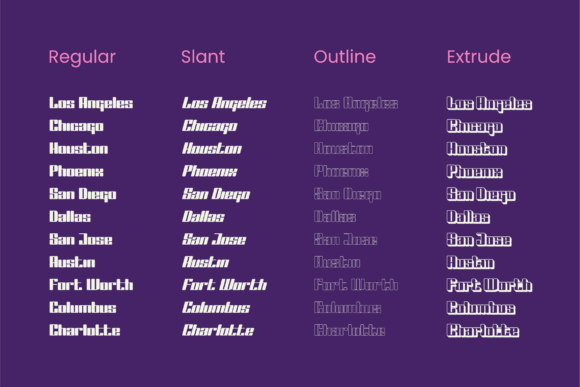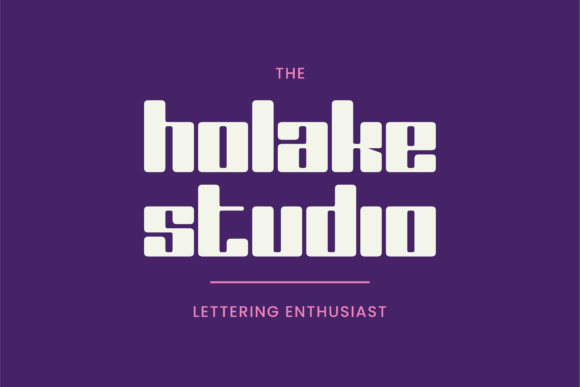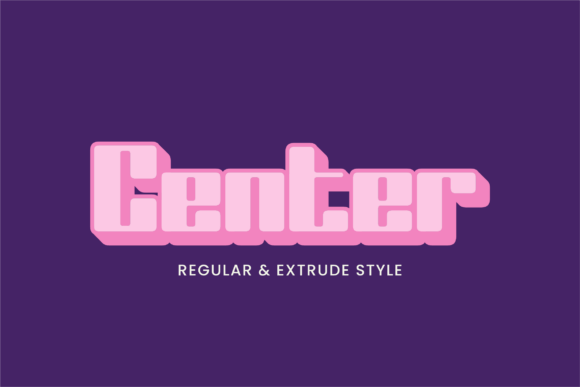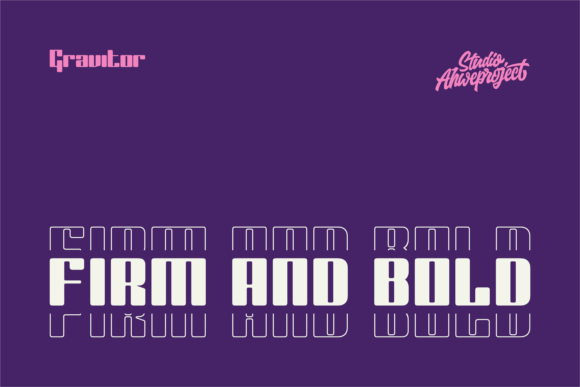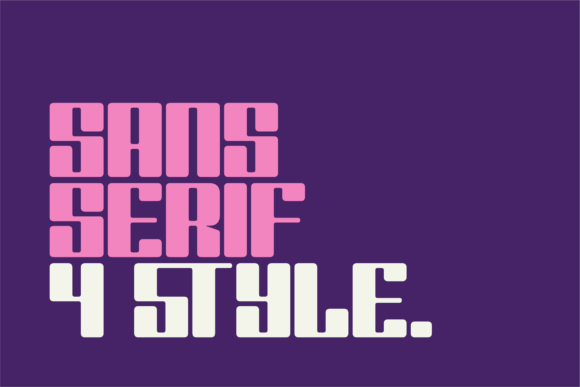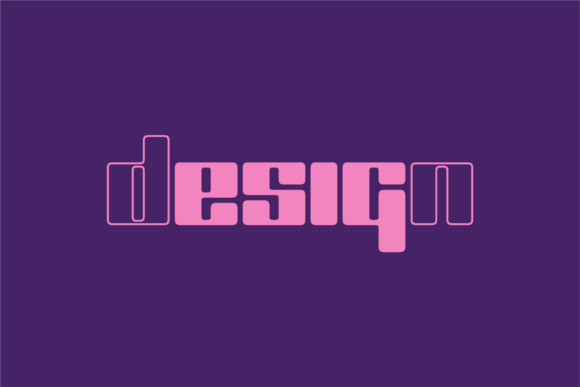
Introducing Gravitor Font: A Bold and Futuristic Typeface for Modern Design
In the world of typography, a font can make or break a design project. With the right typeface, you can convey a message, evoke emotions, and create a lasting impression. If you’re looking for a bold and futuristic font to elevate your designs, look no further than Gravitor Font. This geometric typeface is designed to make a statement, with a modern feel that’s perfect for titles, posters, logos, and large-format text.
Design Features of Gravitor Font
Gravitor Font boasts a unique design that sets it apart from other typefaces. Its blocky, squared letters feature clean edges and smooth curves, giving it a striking yet approachable appearance. The font’s chunky and distinctive shape makes it ideal for designs that require a strong visual impact. Whether you’re creating a bold title, a futuristic logo, or a retro-tech inspired poster, Gravitor Font is the perfect choice.
Variety of Styles for Versatility
One of the standout features of Gravitor Font is its versatility. The font comes in four styles: Regular, Outline, Extrude, and Slant. This range of styles allows designers to experiment with different looks and feels, ensuring that they can find the perfect fit for their design needs. Whether you’re looking for a bold and chunky font or a more subtle and sleek appearance, Gravitor Font has got you covered.
Regular Style: A Bold and Chunky Font
The Regular style of Gravitor Font is perfect for designs that require a bold and chunky font. Its blocky letters and clean edges make it ideal for titles, headings, and large-format text. This style is great for designs that need to make a strong visual impact, such as posters, flyers, and brochures.
Outline Style: A Sleek and Modern Font
The Outline style of Gravitor Font offers a sleek and modern look that’s perfect for designs that require a more subtle appearance. This style features a clean and minimalist outline of the font, making it ideal for designs that need a sophisticated and elegant look.
Extrude Style: A 3D-Inspired Font
The Extrude style of Gravitor Font takes the font to the next level with a 3D-inspired design. This style features a raised and extruded appearance, giving it a futuristic and modern feel. The Extrude style is perfect for designs that require a bold and eye-catching font, such as logos, titles, and headings.
Slant Style: A Dynamic and Edgy Font
The Slant style of Gravitor Font adds a dynamic and edgy touch to the font. This style features a slanted appearance that gives it a sense of movement and energy. The Slant style is perfect for designs that require a bold and attention-grabbing font, such as posters, flyers, and social media graphics.
Retro-Tech Aesthetic for a Bold and Confident Character
Gravitor Font’s retro-tech aesthetic gives it a bold and confident character that’s perfect for modern design projects. The font’s futuristic and geometric design makes it ideal for designs that require a sense of innovation and forward-thinking. Whether you’re creating a logo, a poster, or a website, Gravitor Font is sure to add a bold and confident touch to your design.
In conclusion, Gravitor Font is a bold and futuristic typeface that’s perfect for modern design projects. Its unique design features, versatility, and retro-tech aesthetic make it an ideal choice for designers and crafters. Whether you’re creating a title, a poster, a logo, or large-format text, Gravitor Font is sure to make a lasting impression. So why settle for a bland and ordinary font when you can make a statement with Gravitor Font?
With its chunky and distinctive shape, clean edges, and smooth curves, Gravitor Font is the perfect choice for designers who want to add a bold and confident character to their design projects. So go ahead, take your designs to the next level with Gravitor Font, and experience the power of bold and futuristic typography.